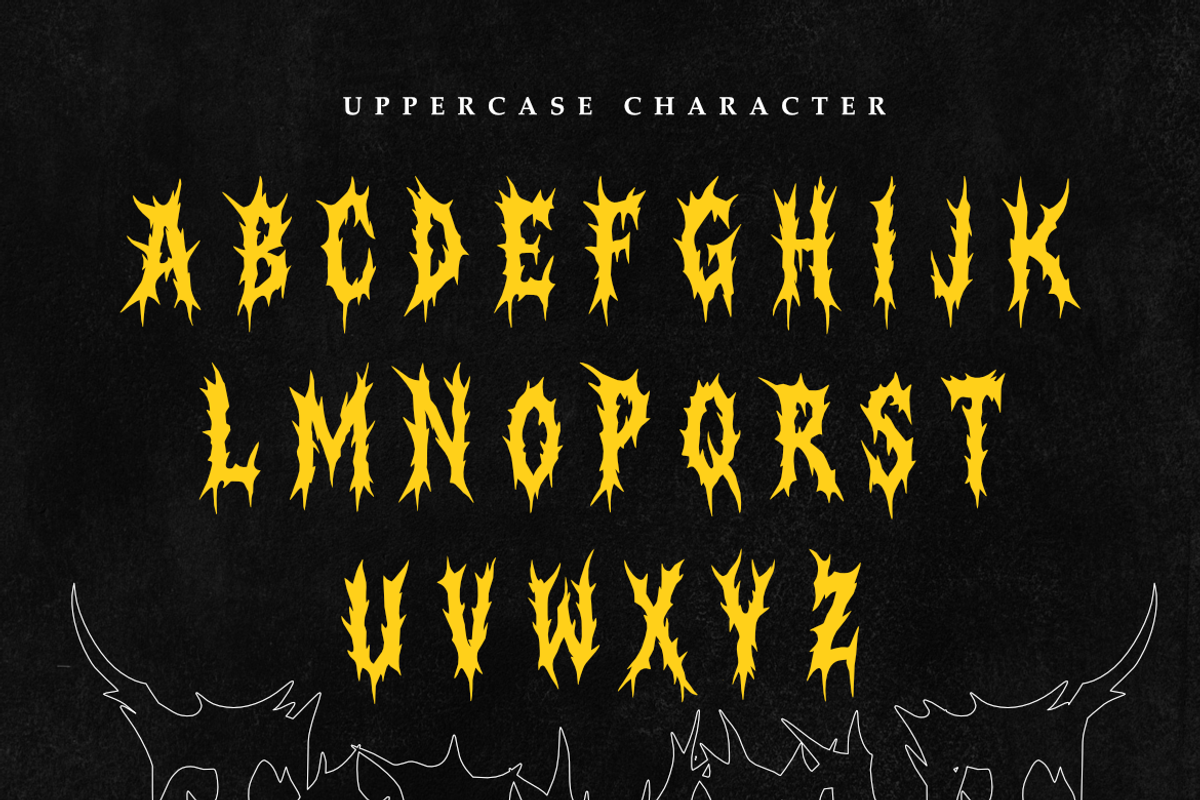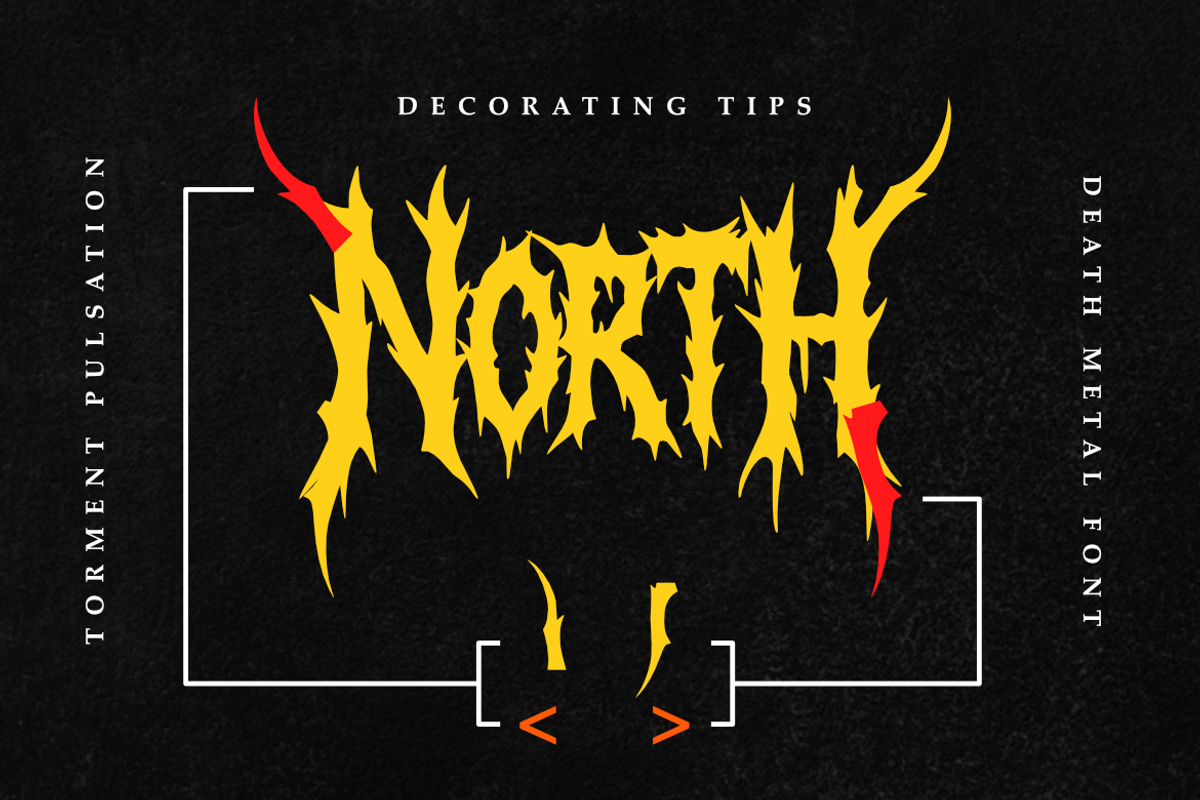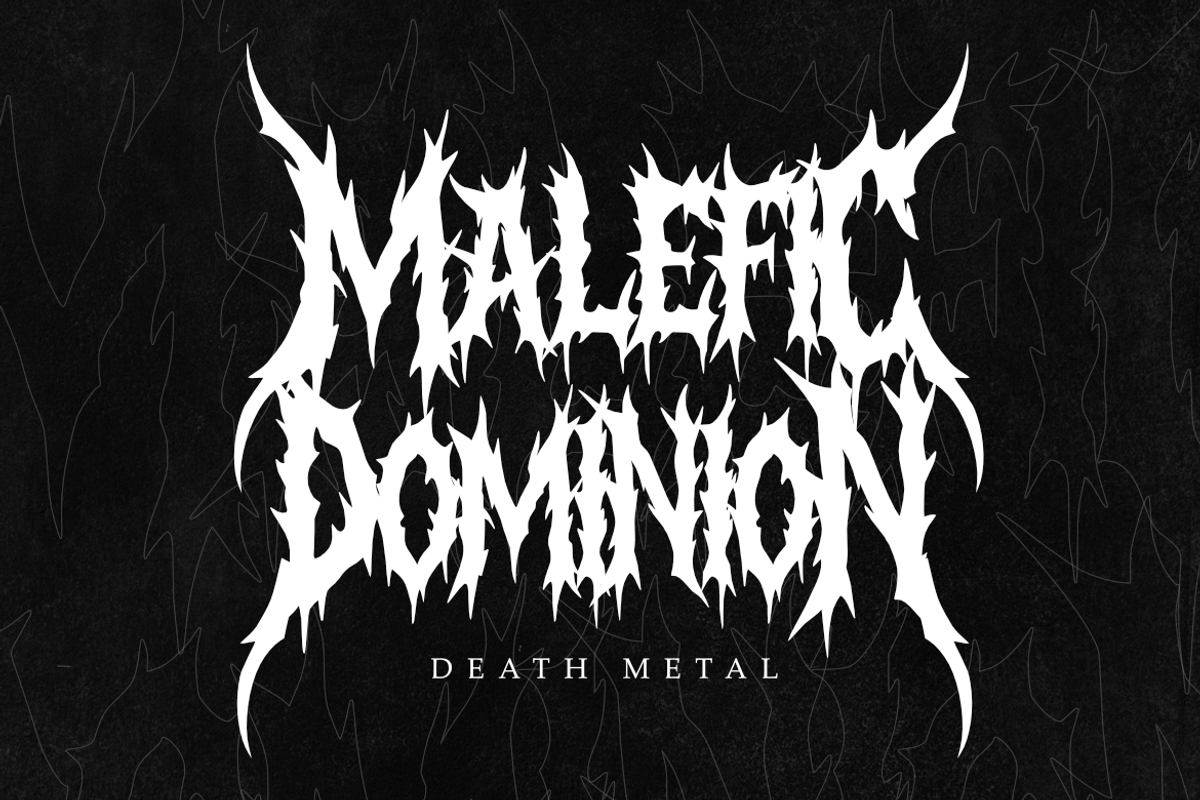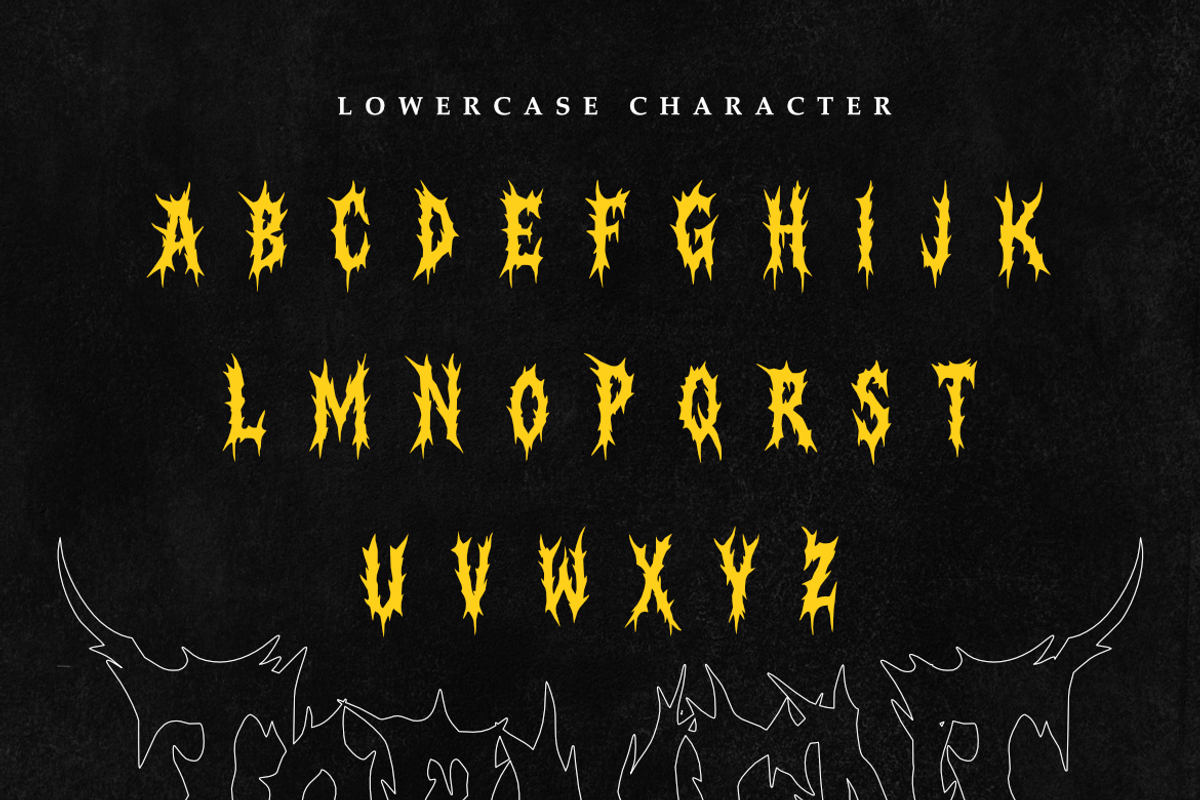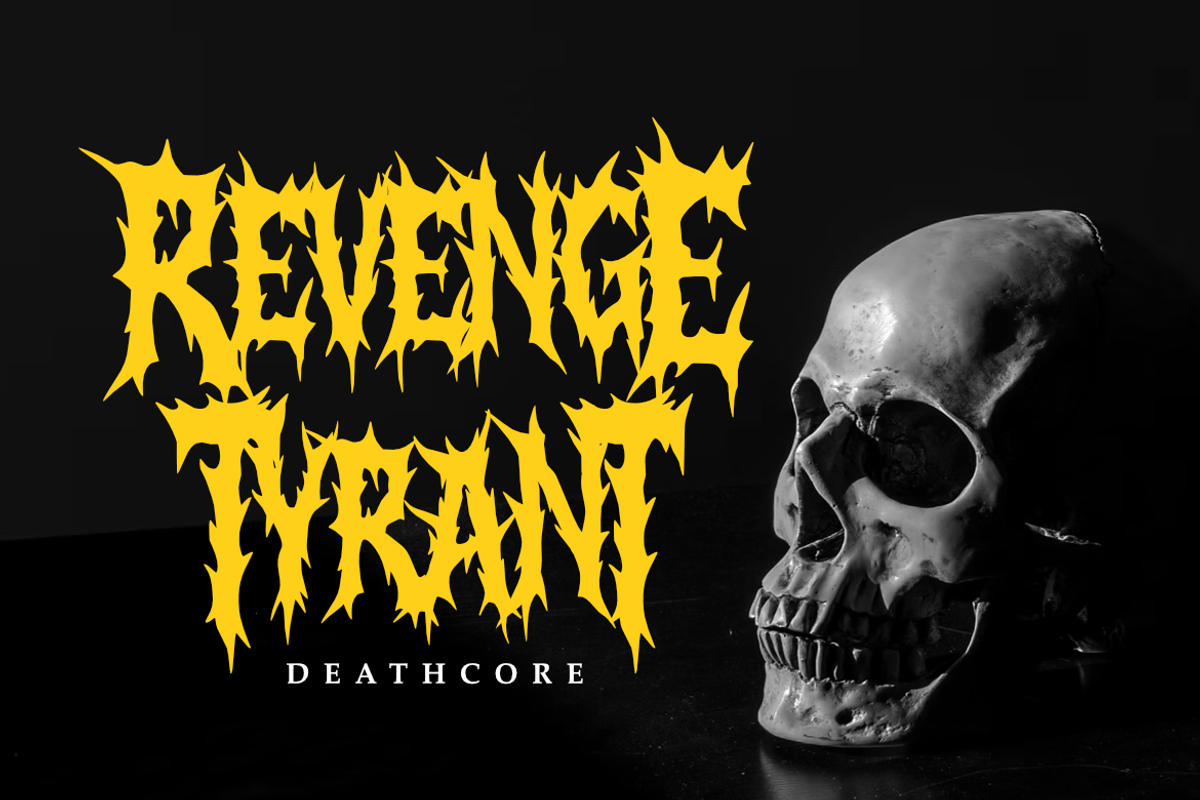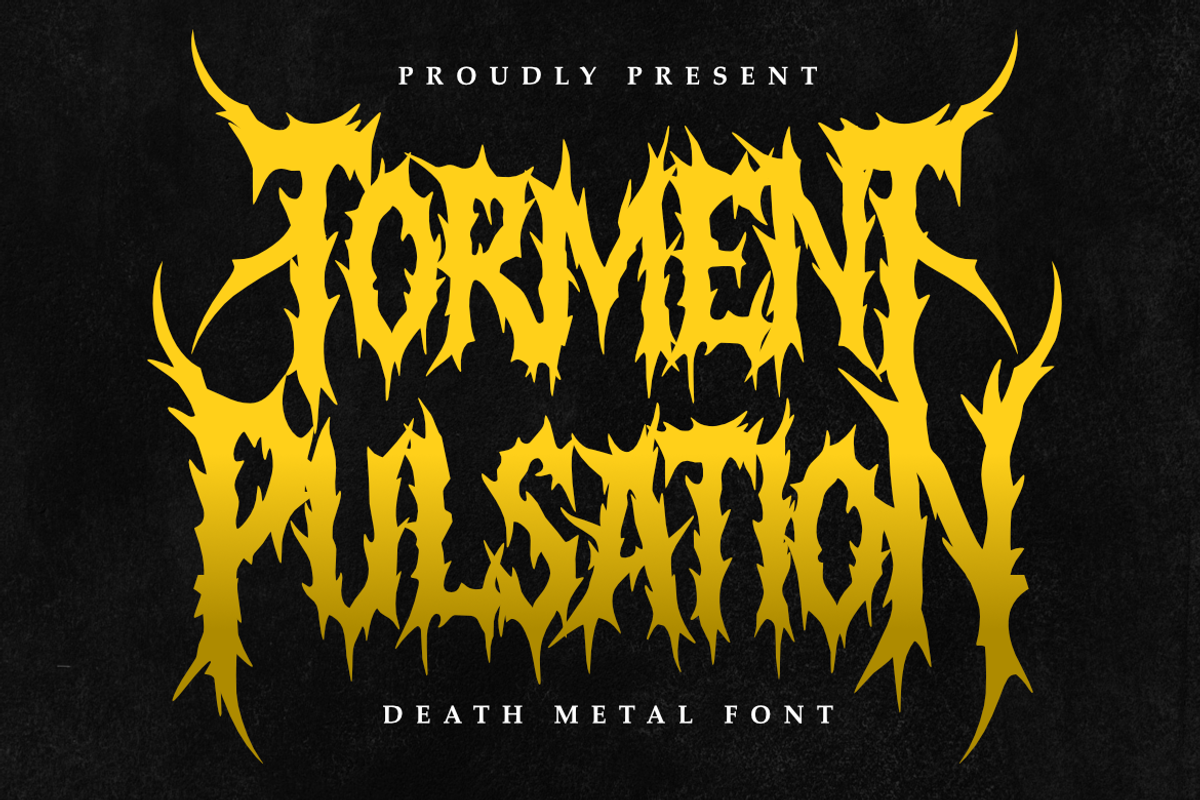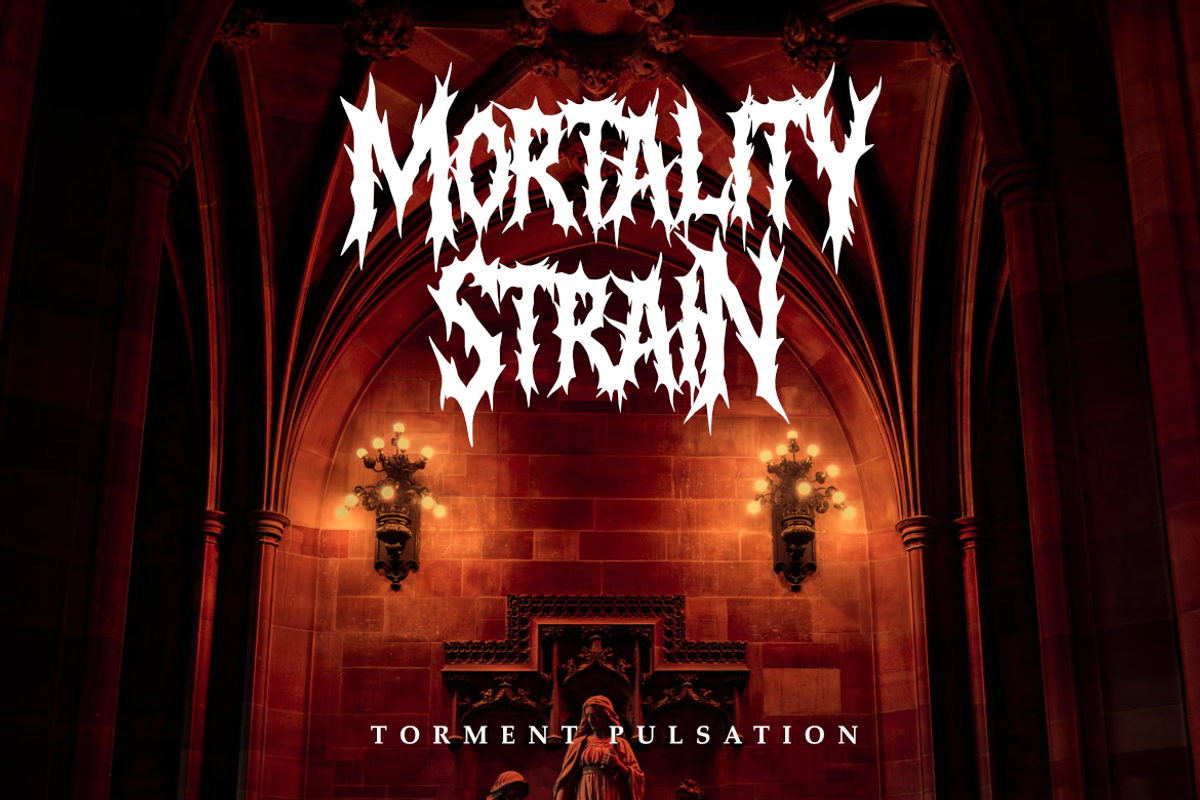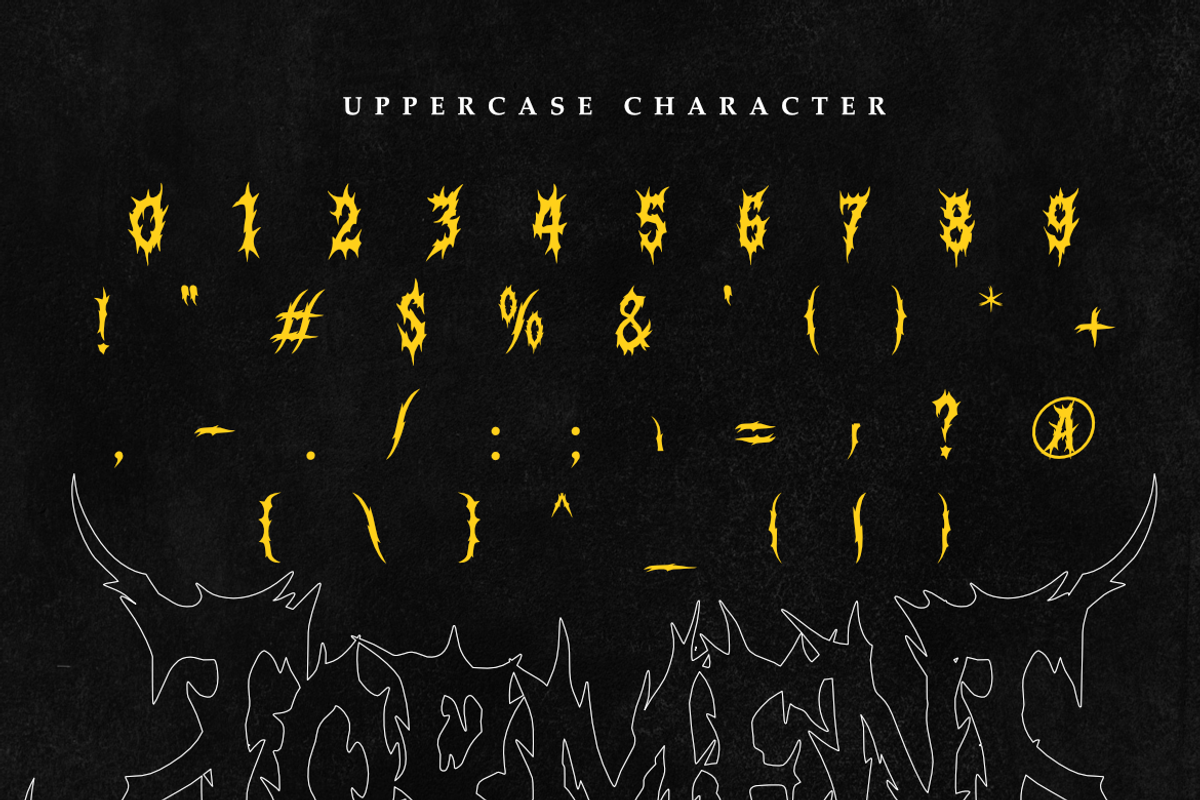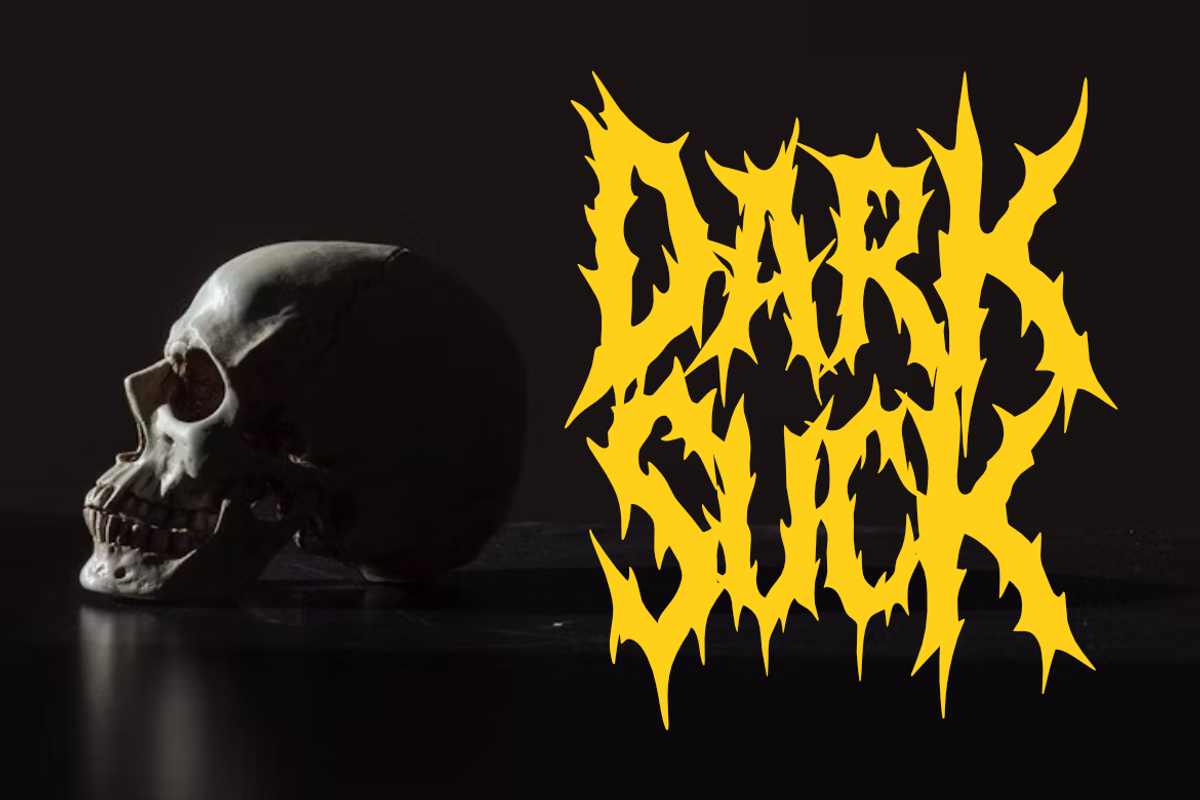
Torment Pulsation – Death Metal
Torment Pulsation is a chaotic and aggressive death metal font forged for the most extreme designs. Its sharp, spiky letterforms mimic the raw, twisted energy of underground metal — perfect for band logos, album covers, posters, and horror artworks.
This hand-drawn style font brings out the authentic brutality and organic flow found in real death metal typography. Every curve and spike is crafted to embody chaos, intensity, and rebellion — ideal for designers who want to capture the true essence of extreme music.
⚡ Features:
- All Caps Font
- Authentic organic strokes
- Perfect for Death Metal, Black Metal, Grindcore, and Horror Projects
- Ideal for logos, and more
Let your design bleed with energy and darkness — Torment Pulsation brings the underground scene to life.